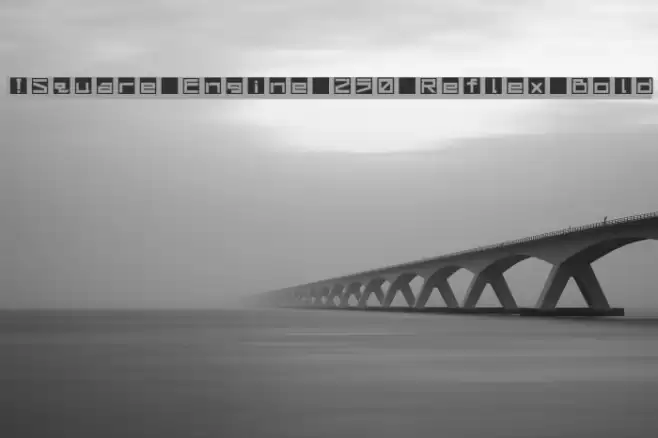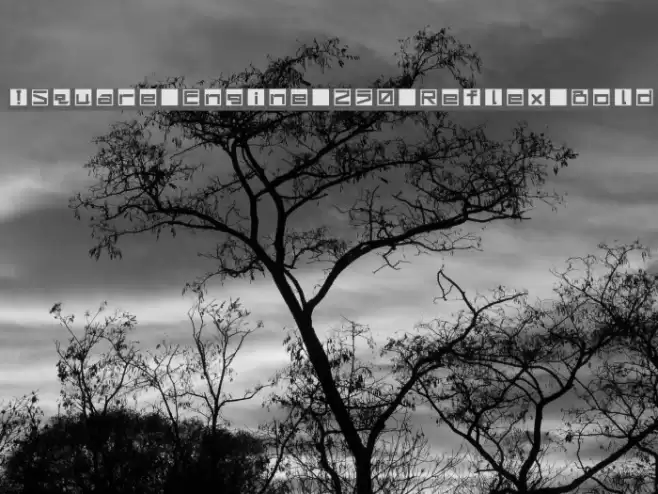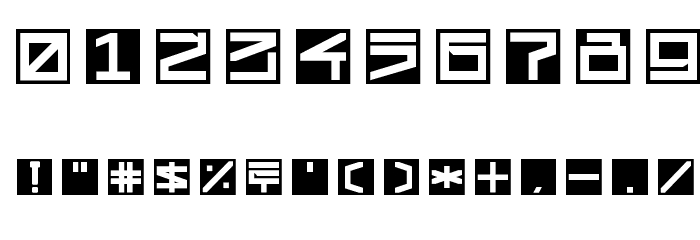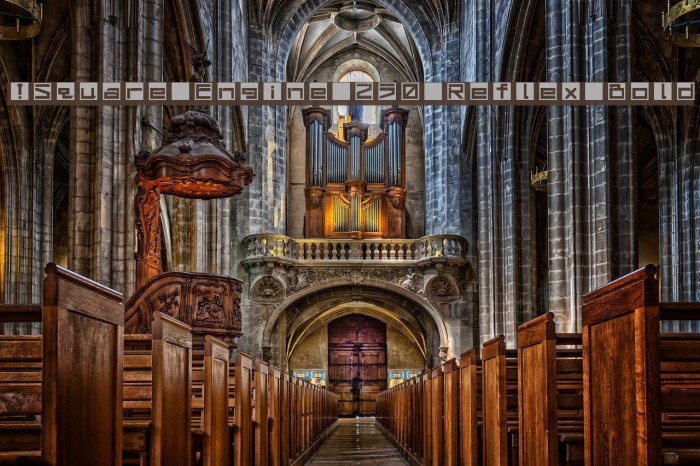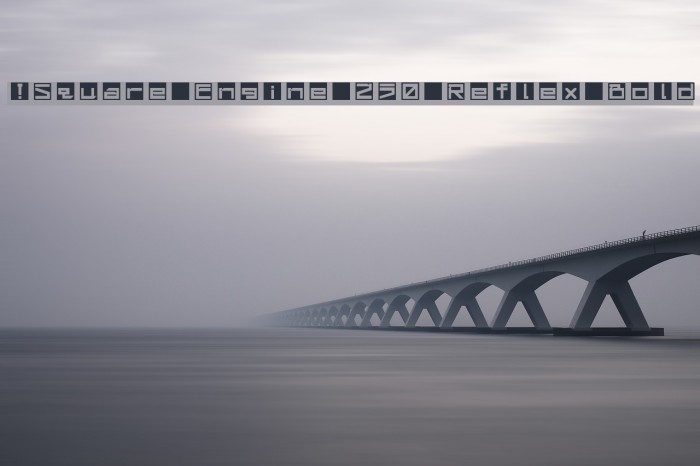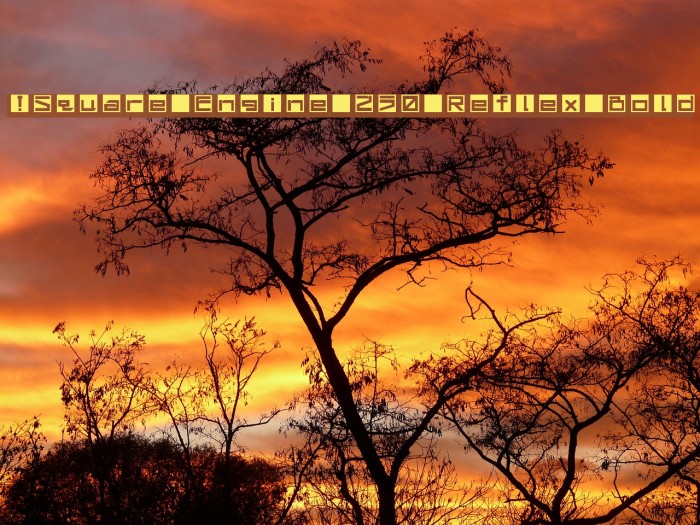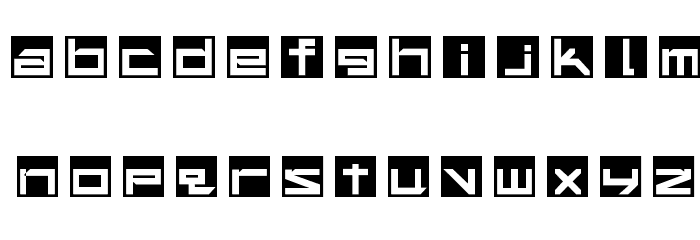
!Square Engine 250 Reflex Bold Font
!Square Engine 250 Reflex Bold Description
This font features a bold and geometric design with a strong emphasis on angular shapes and sharp edges. Each character is enclosed within a square or rectangular frame, creating a uniform and structured appearance. The use of negative space within the letters adds a dynamic and modern touch, making the font stand out with its futuristic and industrial style. The uppercase and lowercase letters maintain a consistent style, while the numerals and special characters follow the same design principles, ensuring a cohesive look across all elements.
A bold, geometric font with angular shapes and enclosed characters from Uncategorized fonts.
- Proposed Projects: Ideal for technology branding, video game titles, futuristic posters, and industrial-themed designs.
- Overall Style: Futuristic